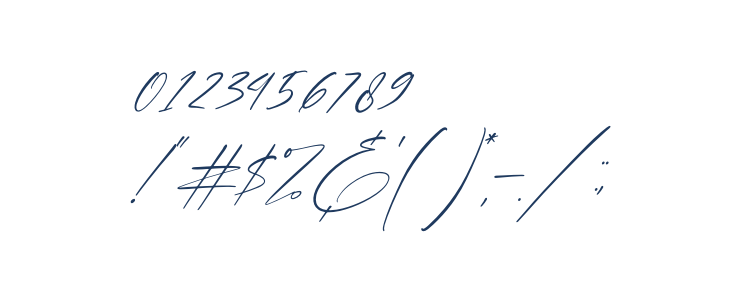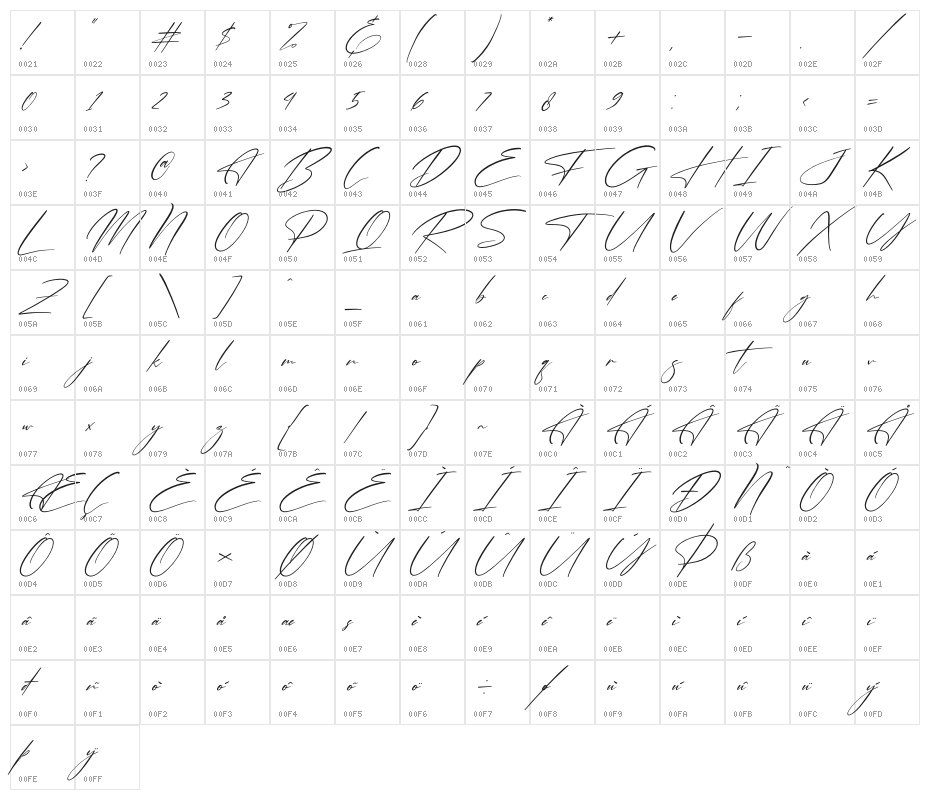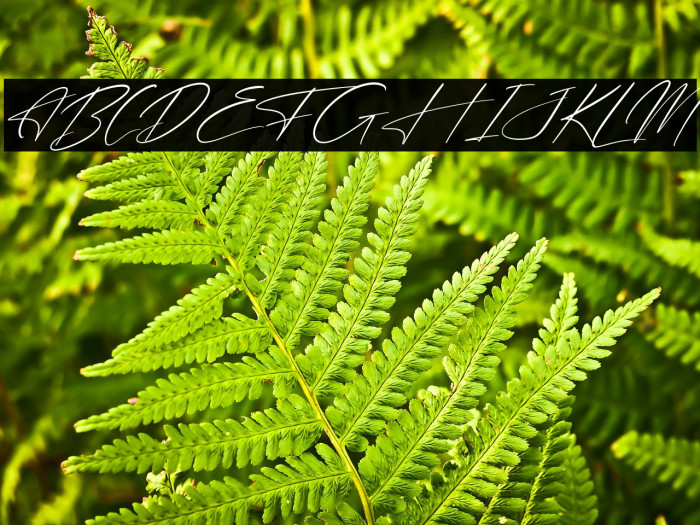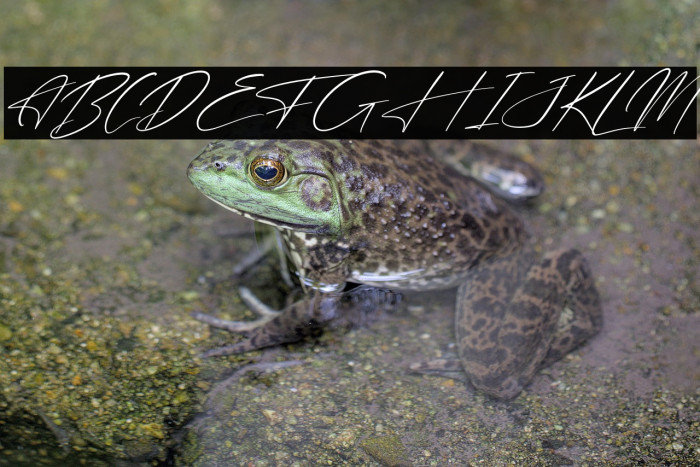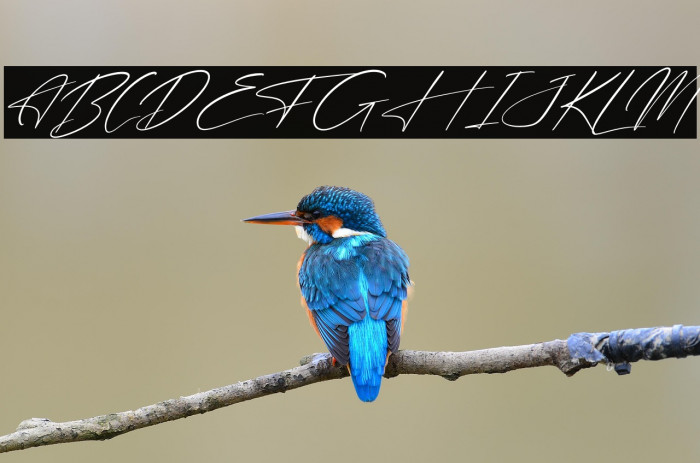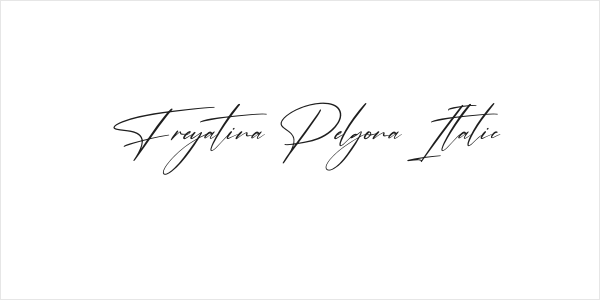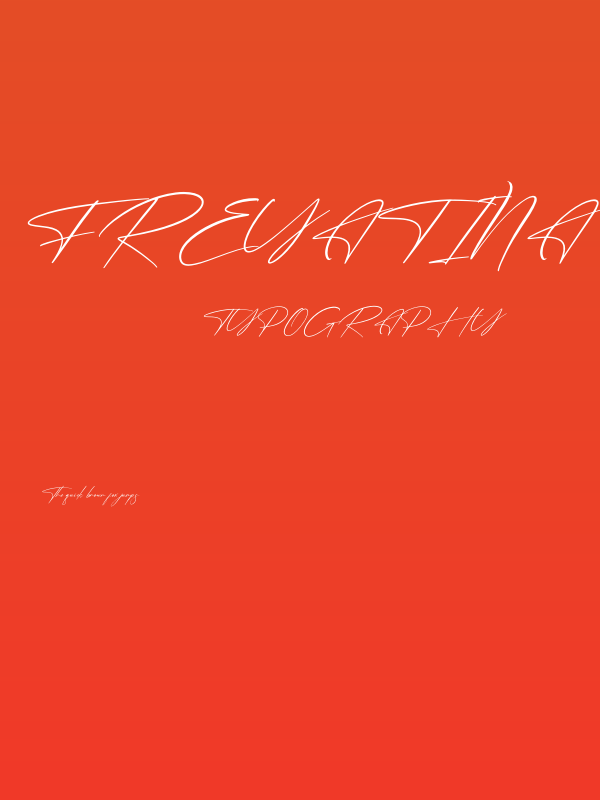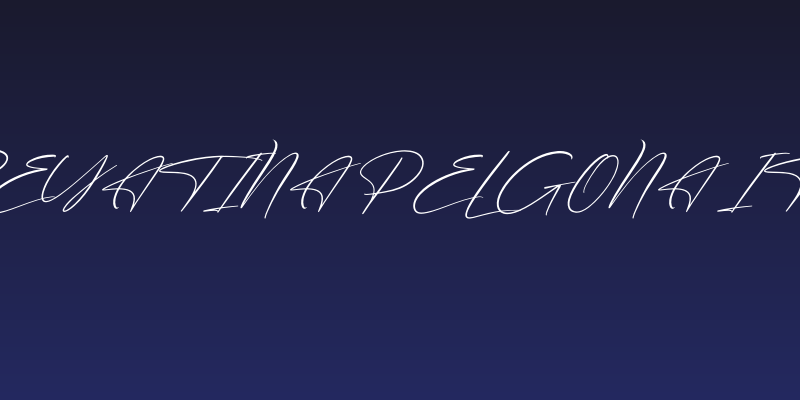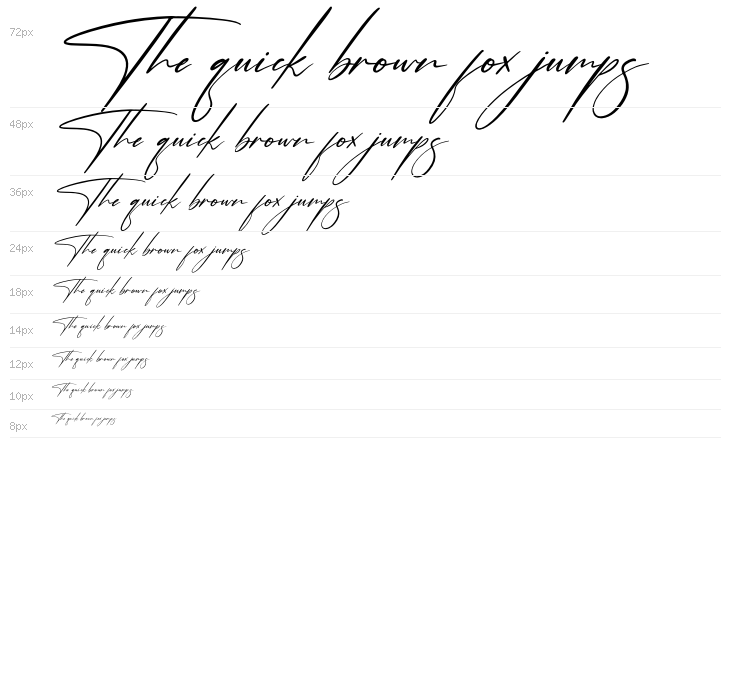
Freyatina Pelgona Italic Font
Freyatina Pelgona Italic Description
This elegant script font features a flowing, cursive style with a distinct italic slant, giving it a dynamic and sophisticated appearance. The characters are connected with smooth, sweeping lines that create a sense of movement and grace. The uppercase letters are tall and slender, while the lowercase letters maintain a consistent flow, enhancing readability. The numerals and special characters are designed to complement the overall aesthetic, maintaining the font's fluidity. This font's delicate strokes and refined curves make it ideal for projects that require a touch of elegance and style.